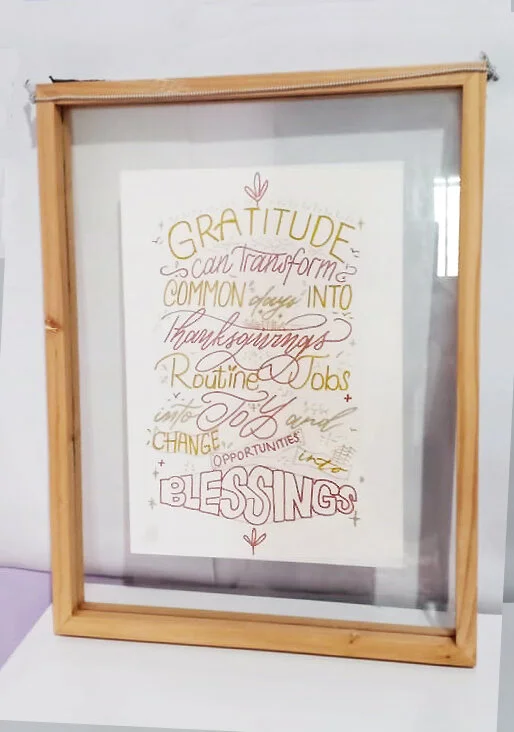
ARTIST | Wancalligraphae (Siaowan Winarto)
ARTWORK | The power of Gratitude
A quote by William Arthur Ward written with brush lettering. I hope everyone can know the power of gratitude and be motivated to do so in every area of their life
CREATED IN | 2020
MEDIUM | Brush and Lettering